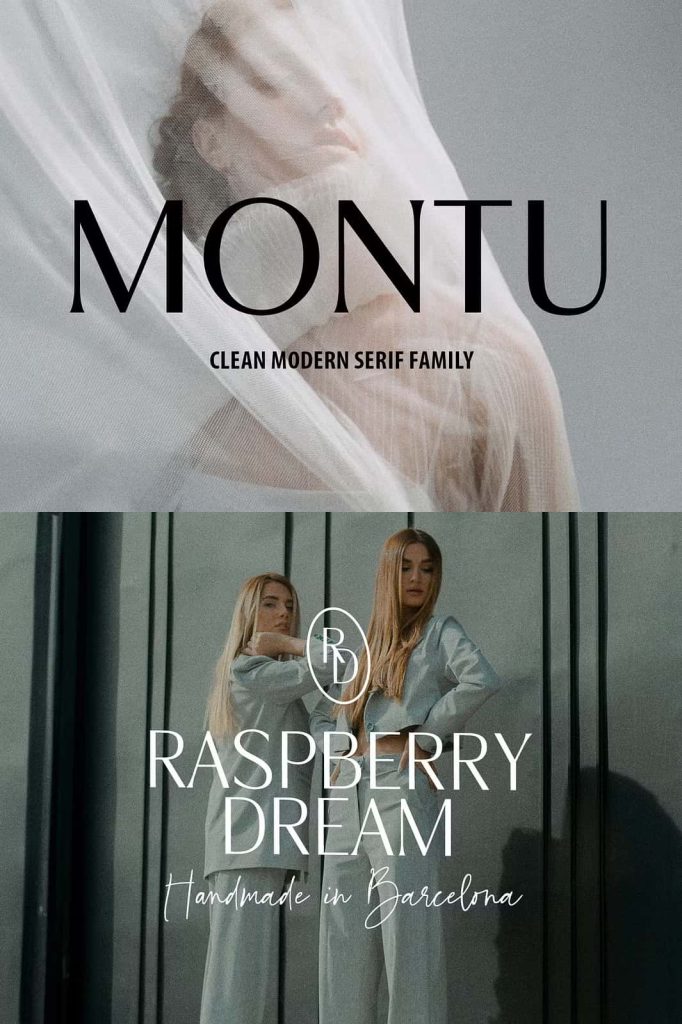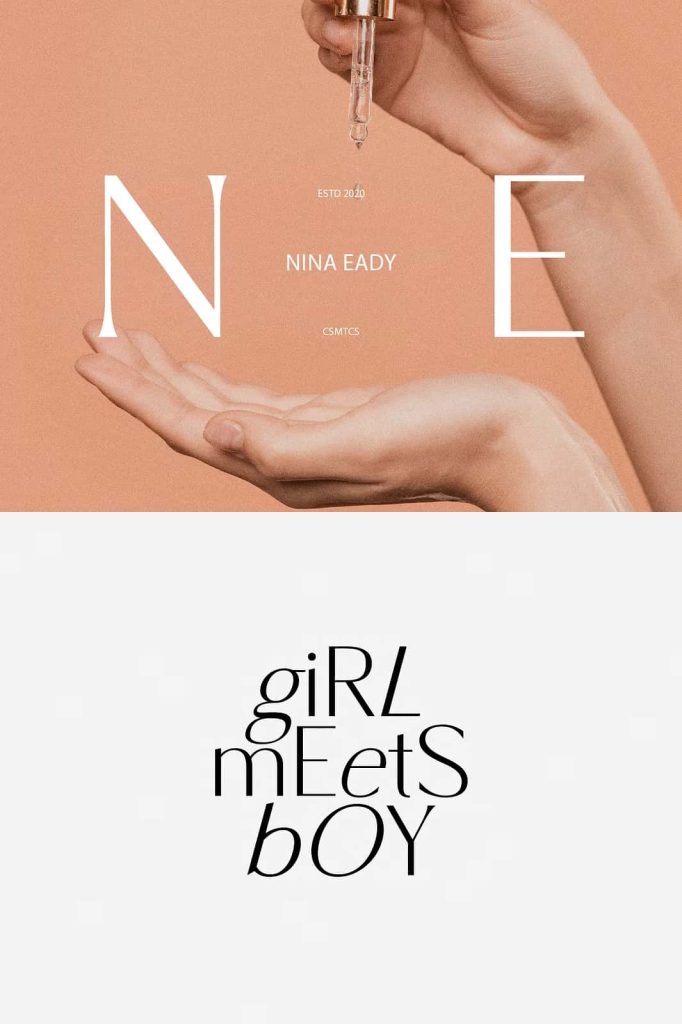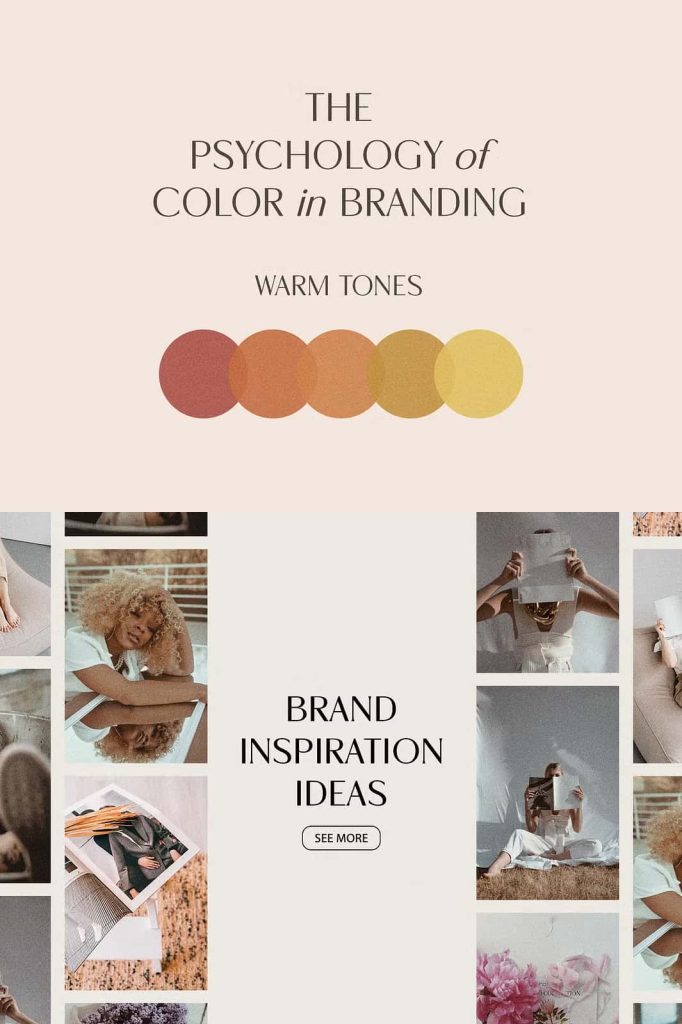
Montu Modern Sans Serif Font
Montu is an elegant modern sans serif font designed to deliver clean, sophisticated typography for a wide variety of creative projects. Combining minimalist design principles with refined proportions, Montu offers a timeless aesthetic that works beautifully across branding, editorial layouts, digital media, and professional marketing materials.
Featuring both Upright and Italic styles, Montu gives designers the flexibility to create balanced typographic compositions while maintaining a consistent visual identity. The upright style provides exceptional clarity and professionalism, while the italic version introduces movement, emphasis, and elegance that enrich every design.
Whether you are developing a luxury brand, designing a modern website, creating editorial publications, or producing advertising campaigns, Montu delivers the versatility and visual harmony needed to make every project stand out with confidence.
A Clean and Elegant Modern Sans Serif
Montu embraces the simplicity of contemporary typography while incorporating subtle refinements that elevate its overall appearance. Every letter has been carefully designed with balanced proportions, smooth curves, and clean geometric construction, creating a typeface that feels modern without appearing cold or mechanical.
The font communicates professionalism, sophistication, and clarity, making it an excellent choice for designers who appreciate minimalist aesthetics with premium quality. Its timeless structure allows Montu to remain visually relevant across changing design trends.
Whether used in bold headlines or supporting text, Montu consistently delivers a polished and refined appearance.
Upright and Italic Styles for Greater Flexibility
Montu includes both upright and italic styles, allowing designers to create dynamic typography while maintaining visual consistency throughout their projects. The upright version provides clean readability for titles, body text, and branding materials, while the italic style introduces elegant emphasis for quotes, highlights, captions, and sophisticated display typography.
Using both styles together creates natural visual hierarchy that enhances readability and strengthens the overall design composition.
Perfect for Branding and Visual Identity
Typography is one of the most important elements of successful branding, and Montu has been carefully crafted to help businesses establish modern, memorable identities. Its clean construction and elegant appearance communicate confidence, reliability, and professionalism across every customer touchpoint.
Montu performs exceptionally well in logos, business cards, packaging, stationery, promotional materials, websites, and corporate branding projects where consistency and visual quality are essential.
Excellent for Editorial Design
Montu provides the balance and readability required for professional editorial projects. Its elegant proportions allow headlines, titles, and subheadings to stand out while maintaining excellent harmony with supporting typography.
Designers can confidently use Montu for magazines, books, brochures, catalogs, annual reports, presentations, and corporate publications where clean visual hierarchy and polished typography play an essential role.
The font pairs effortlessly with serif fonts, script typefaces, and other sans serif families, making it an excellent addition to any typography collection.
Create Beautiful Websites and Digital Interfaces
Modern websites demand typography that remains clear across every screen size. Montu delivers outstanding readability for websites, mobile applications, landing pages, user interfaces, and digital presentations while maintaining its elegant appearance.
Its clean structure ensures sharp rendering on both desktop and mobile devices, allowing designers to create consistent digital experiences that feel modern and professional.
Ideal for Marketing and Advertising
Marketing materials require typography that communicates messages clearly while maintaining strong visual appeal. Montu performs exceptionally well across advertising campaigns, social media graphics, promotional banners, email marketing, presentations, and printed advertisements.
The combination of upright and italic styles allows designers to create engaging layouts that highlight important information without disrupting the overall composition.
Versatile Across Creative Projects
Montu adapts effortlessly to a wide range of creative disciplines thanks to its clean design and refined personality. Whether your project embraces minimalism, luxury aesthetics, or contemporary corporate styling, the font provides outstanding flexibility for both print and digital media.
Montu Modern Sans Serif Font is an elegant and versatile typeface designed for today’s creative professionals. Featuring both upright and italic styles, it offers exceptional flexibility for branding, logos, editorial design, websites, packaging, marketing materials, corporate communications, and digital content. Its clean construction, refined proportions, and timeless modern aesthetic make Montu an outstanding choice for designers seeking professional typography that combines simplicity, sophistication, and lasting visual appeal.